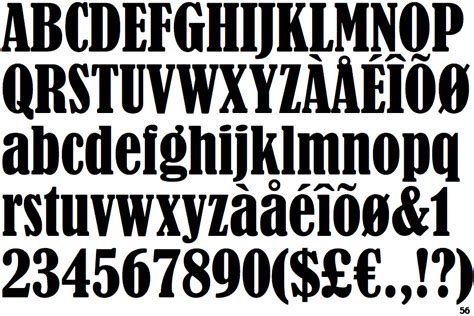
Web this mt condensed font is famous for its bold, italic, and regular weights. Web use it in situations where you need to get interested because whilst maintaining an informal tone. It has been downloaded 2275 times. 4 users have given the font a rating of 4.75 out of 5. This is a licensed typeface that is great for its pairing function and it is also a great option for its font generation function. Download bernard mt condensed font family for free. Web bernard mt condensed is one of a group of typefaces developed during the first 20 or 30 years of this century, yet it retains some affinity with the organic forms of the art nouveau movement. You can find more information about. Web bernard mt condensed regular. Detailed information on the bernard mt condensed font: